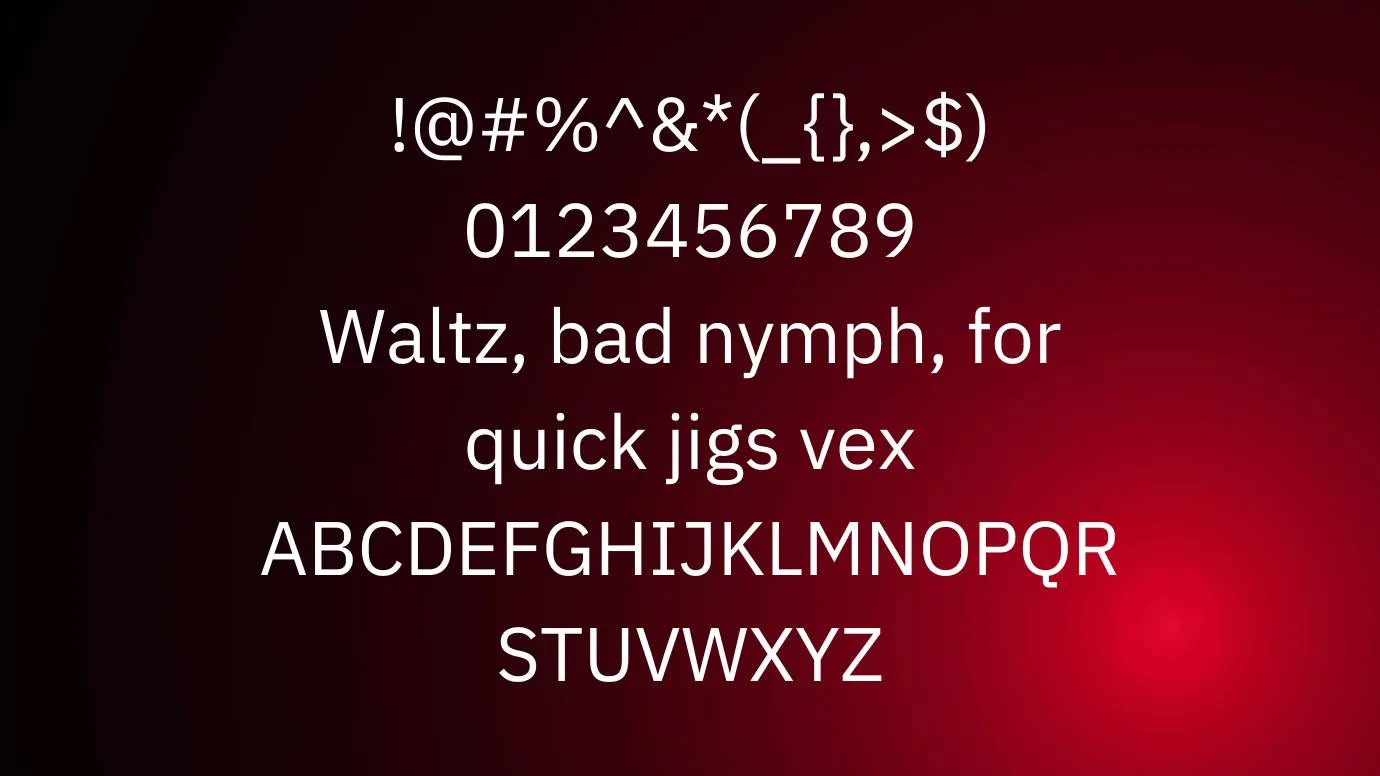
Introducing the IBM Plex Font an international typeface that has been created by the collaboration of two type artists named Mike Abbink and Bold Monday. The typeface style is designed to grab IBM’s history and spirit and to show the special connection between machines and mankind. The typeface style has maximum legibility over digital platforms including mobile interfaces, print, and the web.
IBM Plex Font’s three designs work nicely, and even look good with each other. If we talk about its texture style, its texture visual is so obvious its letter “B” has a vertical stroke in the interior right corner which contrasts finely against the spherical curves of the outer stroke.
Its character “M” has a very sharp centerline, and that things make the typeface style more perfect and unusual. It has many styles and weights and the whole family is totally free for personal use. IBM Plex Font and Trueno Sans Font look great in pairing functions.
View of IBM Plex Font
You can also try its IBM Plex Mono style for your design projects which is available in the google fonts library. Whereas the typeface style can be used in your logo designs, Signage, Magazine covers, Banners, Posters, Press newspapers, pamphlets, Embedded in games, Menus, gift cards, invitation cards, and much more. You can also try the Work Sans Font which is much closer to this.
What are IBM Plex fonts?
It is an international typeface that has been created by the collaboration of two type artists named Mike Abbink and Bold Monday.